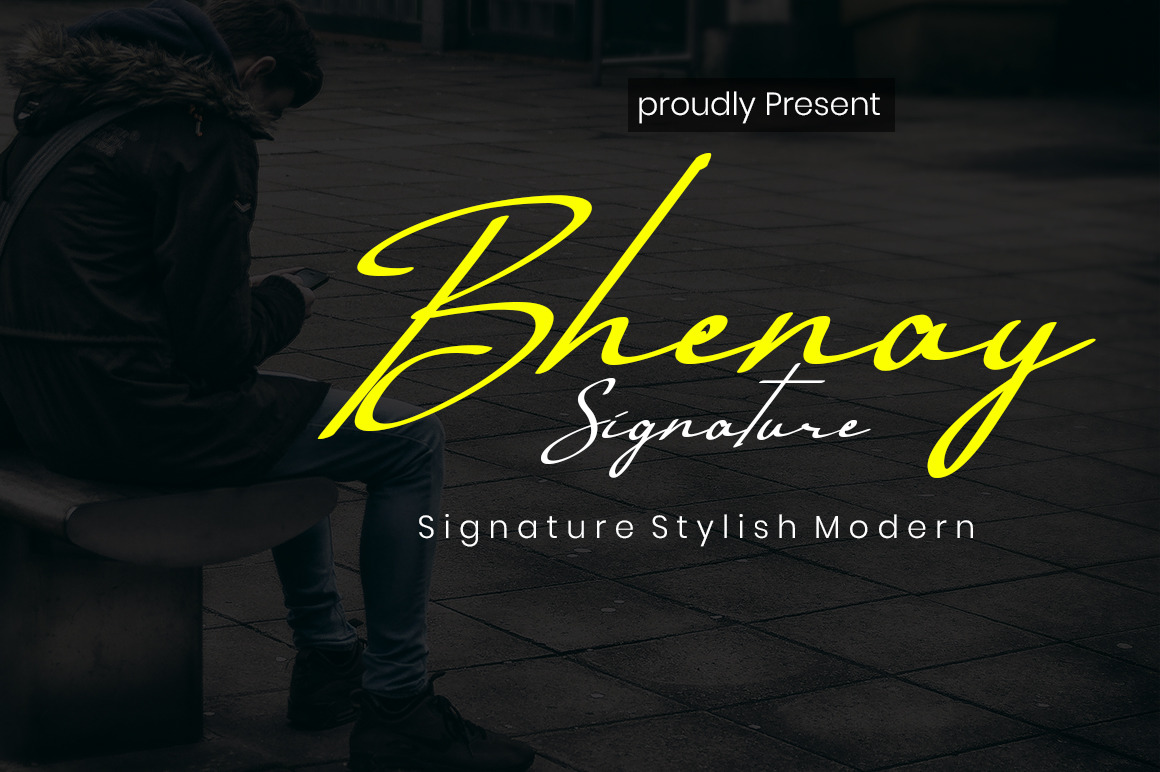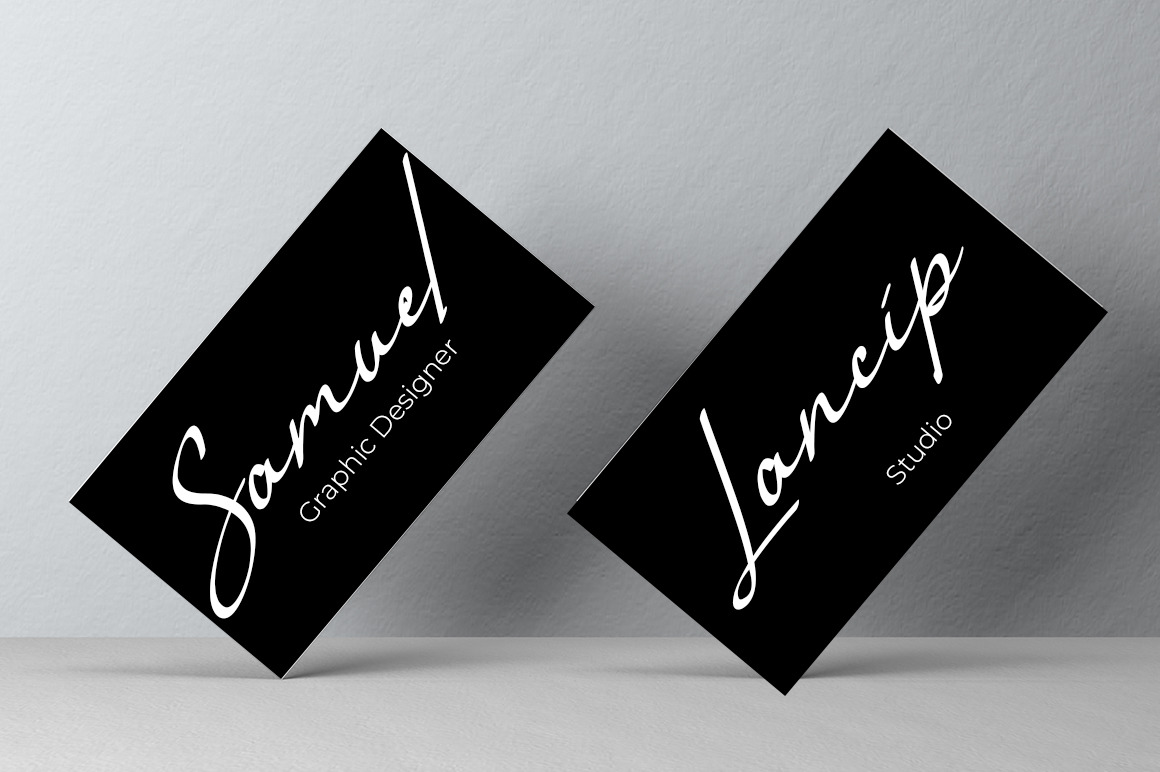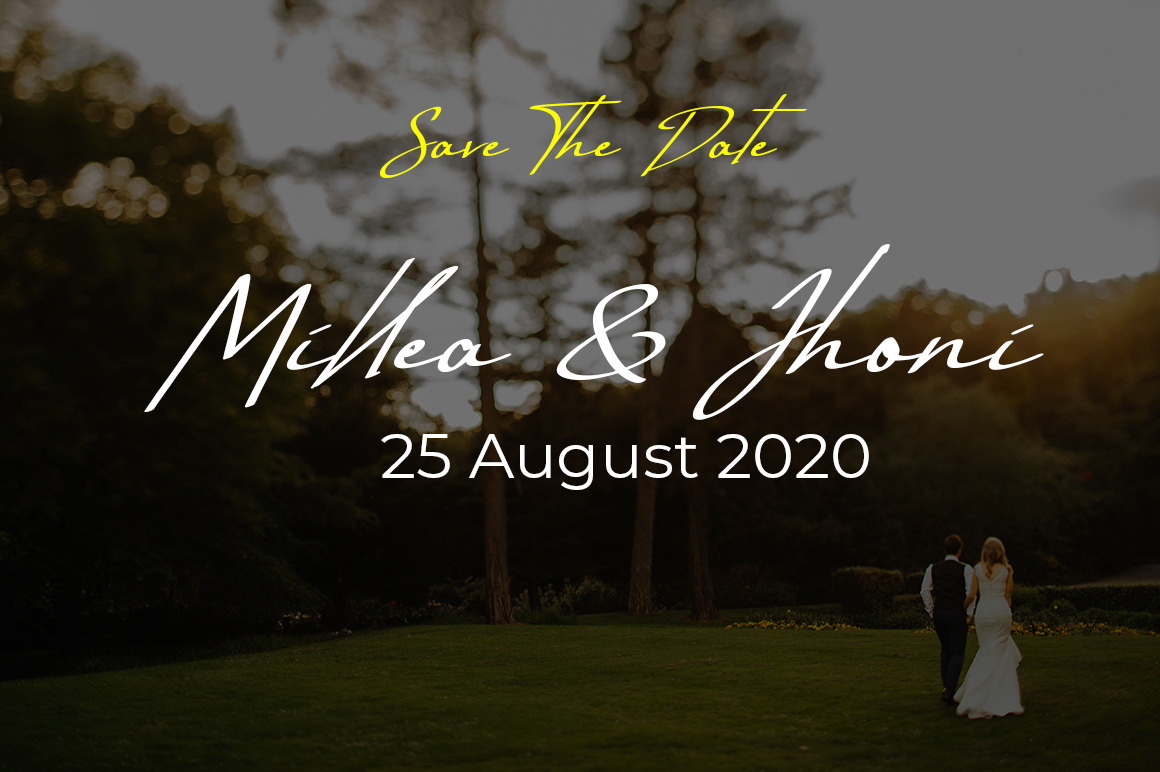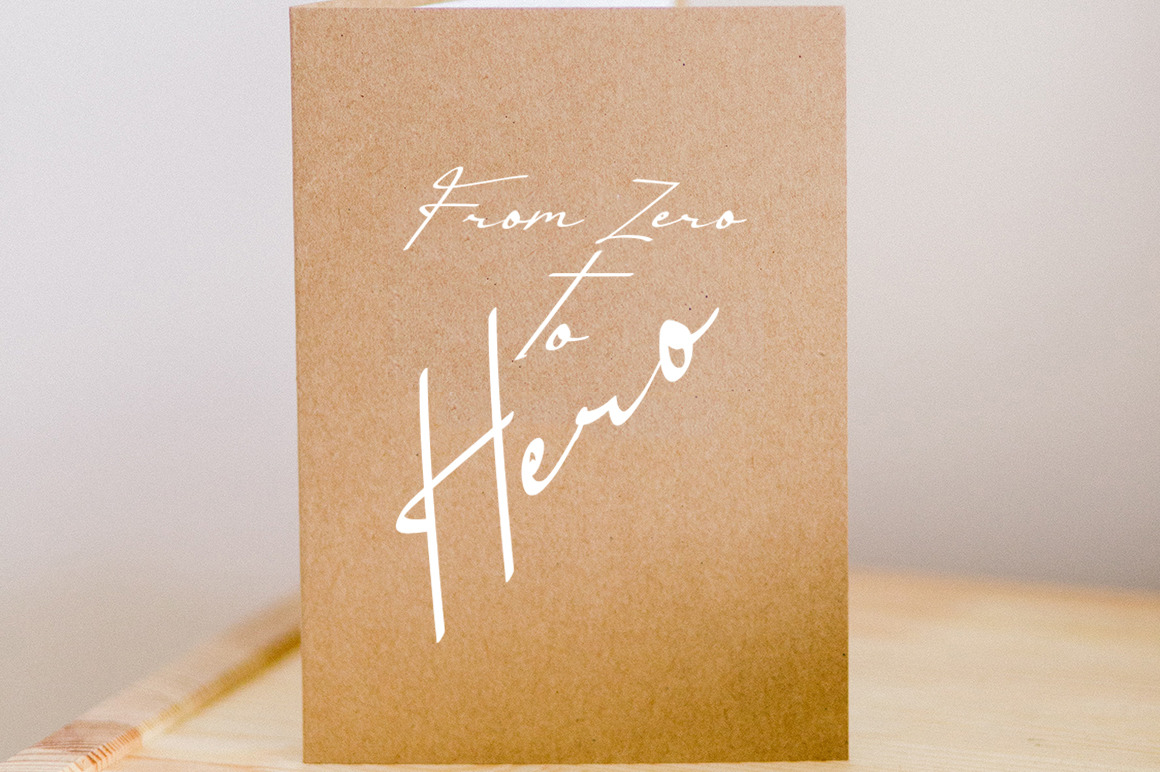
Bhenay Signature Font
Bhenay Signature is script font which natural movement and elegant for signature style.
is perfect for branding projects, logo, wedding designs, social media posts, advertisements, product packaging, product designs, label, photography, watermark, invitation, stationery and any projects that need handwriting taste.
• Ligature
• Fonts include multilingual support for; ä ö ü Ä Ö Ü ß ¿ ¡